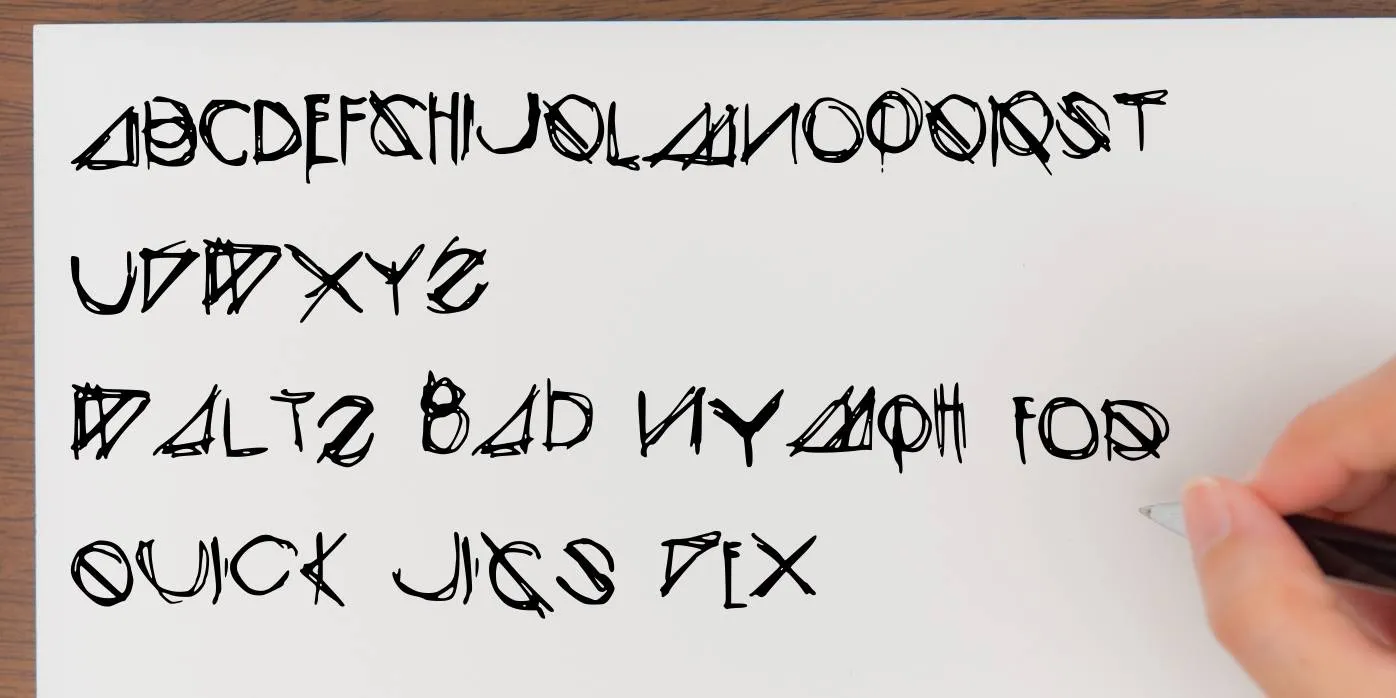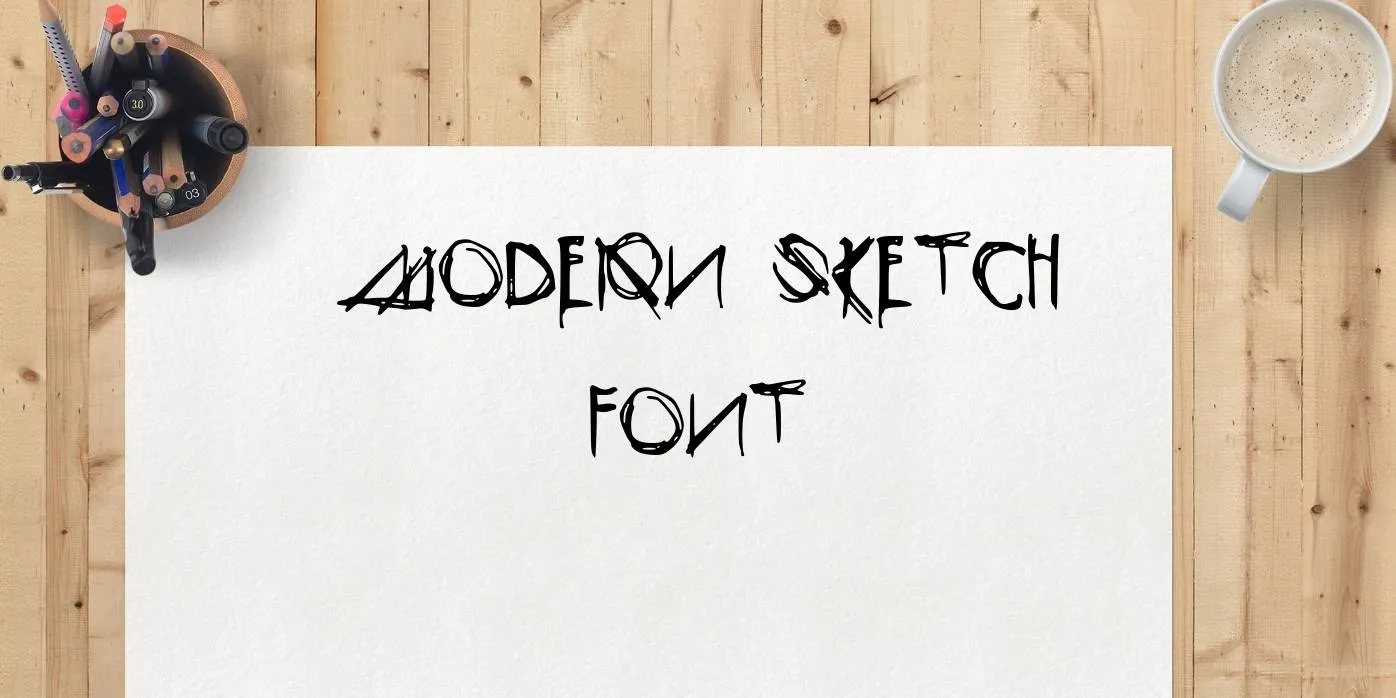
Modern Sketch Font
Modern Sketch Font is a very special and ultimate font that seems like a trash shape. The font family belongs to Script Fonts. The designer of this particular font is Leonard Posavec that is very professional in his field. The typeface has TTF features.
If we talk about its glyphs the font family contains special letters that are Uppercase and Lowercase, Number / Numerals, etc. The typeface also has the ability to support many international languages and support many features. The font family has only basic characters but that is very useful and very functionals. The font seems like a hand sketch therefore it is very unique for usage in any design project.¬† It is fulfilled with all the user’s requirements.